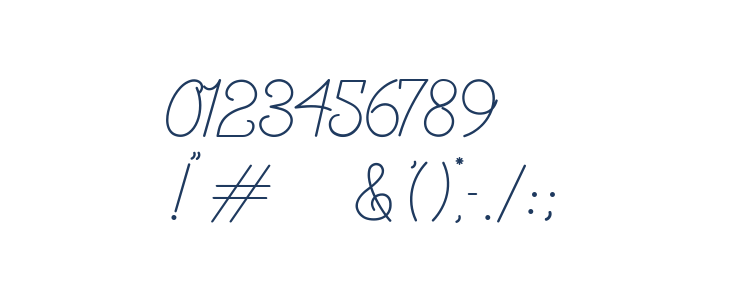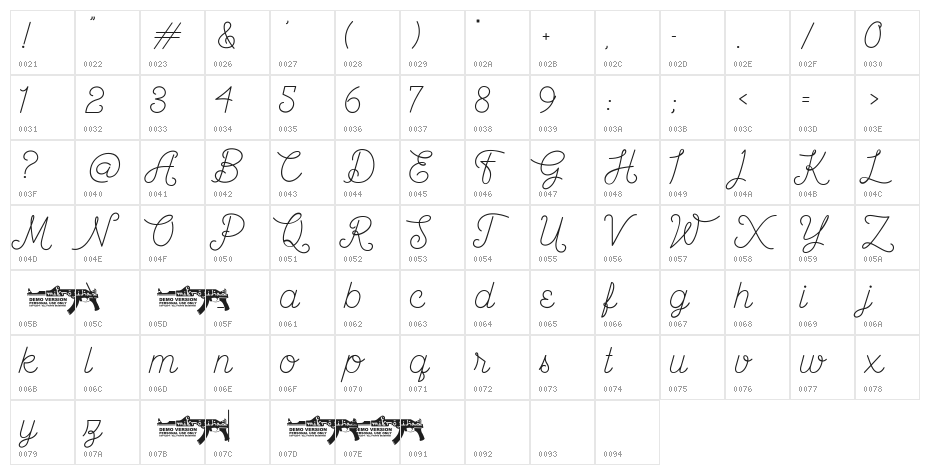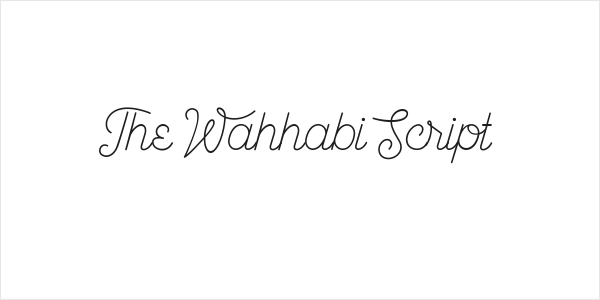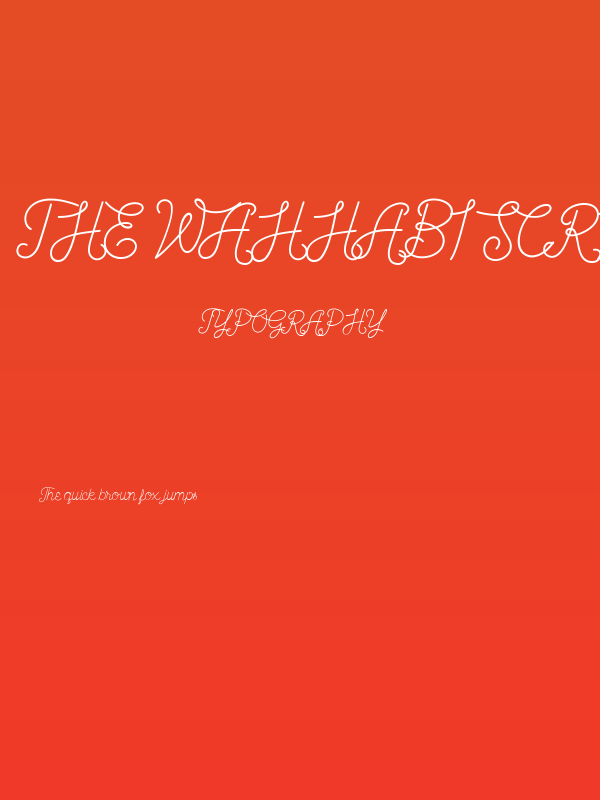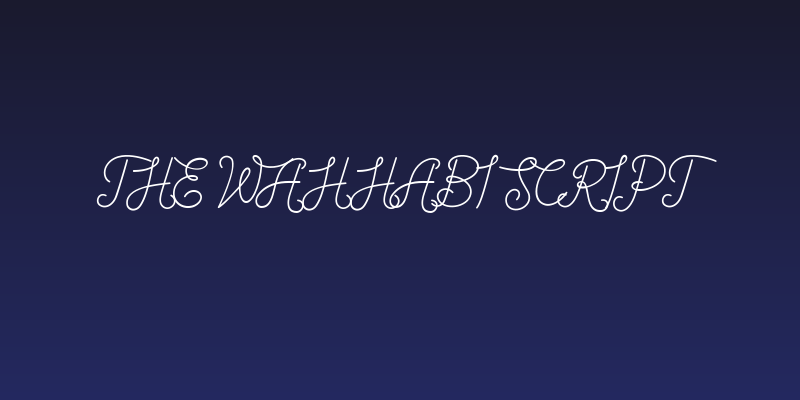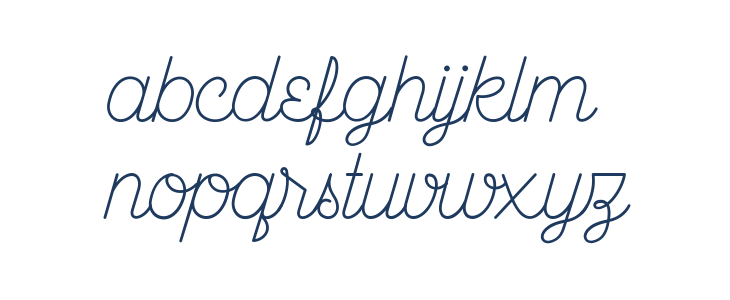
The Wahhabi Script Font
The Wahhabi Script Description
This elegant script font features a flowing, cursive style with graceful loops and swirls. The uppercase letters are particularly ornate, with intricate connections between strokes that give a sense of fluidity and movement. The lowercase letters maintain a consistent style, offering a harmonious blend of curves and lines. Numbers and special characters are designed to match the overall aesthetic, ensuring a cohesive look across all elements. The font's delicate and artistic nature makes it ideal for projects that require a touch of sophistication and elegance.
| Use Case | Logos, Invitations, Decorative text |
| Proposed Projects | Ideal for wedding invitations, elegant branding, greeting cards, and decorative signage. |